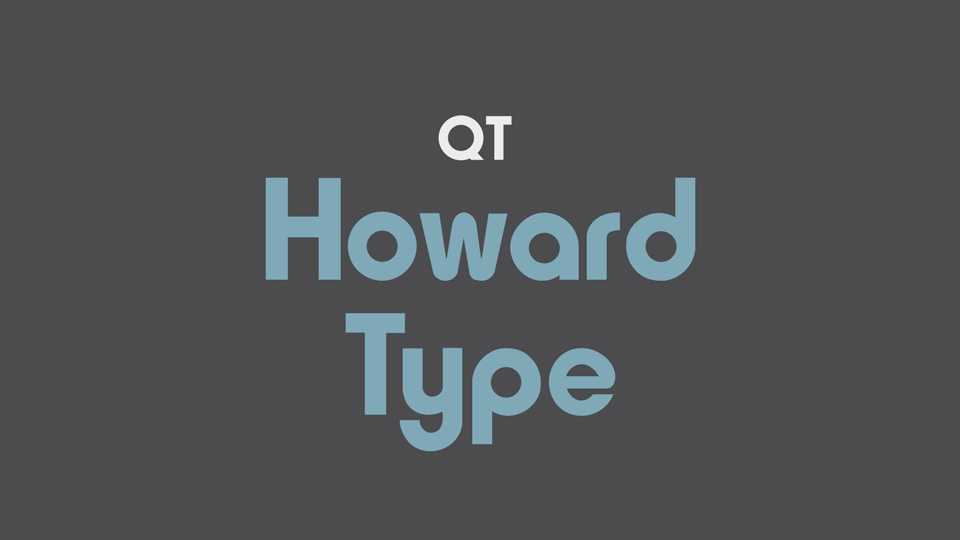
Download Howard Type, a geometric sans serif font family, a delightful look back into the modernists experiments of the 1920s. Howard Type based on the original design by Marty Goldstein and C.B. Smith.